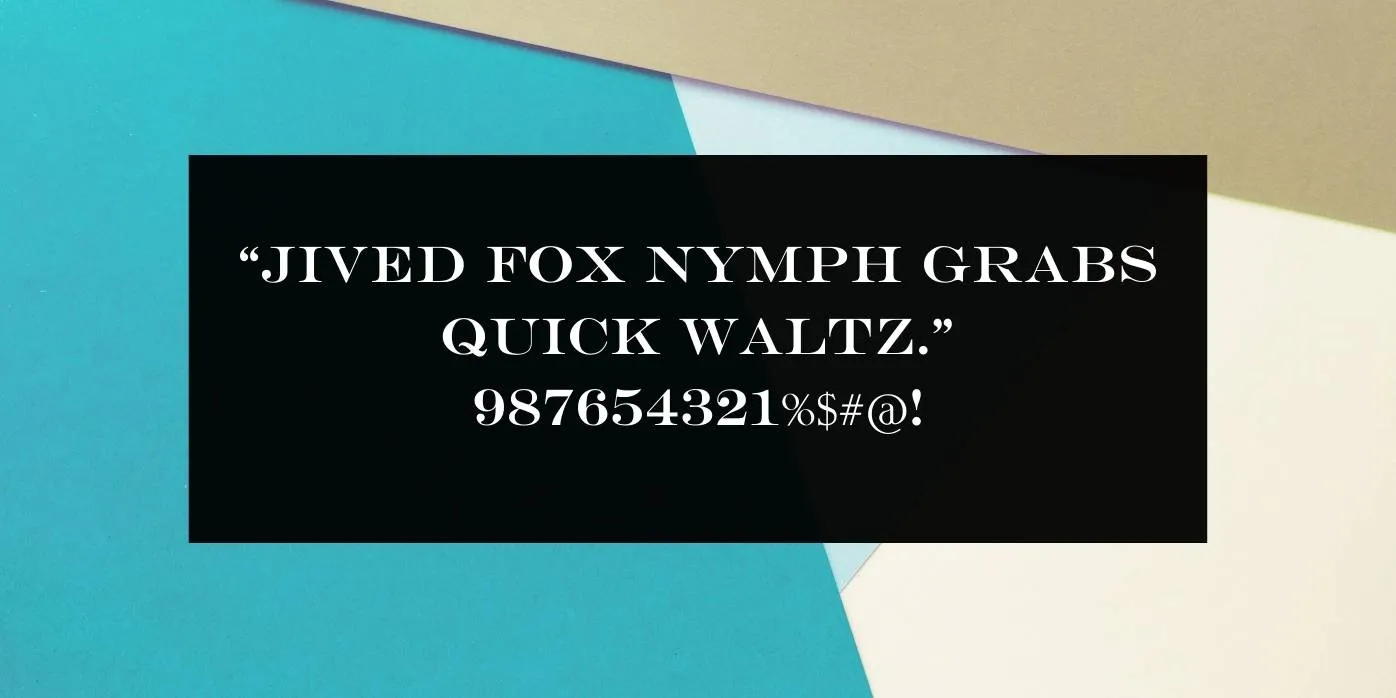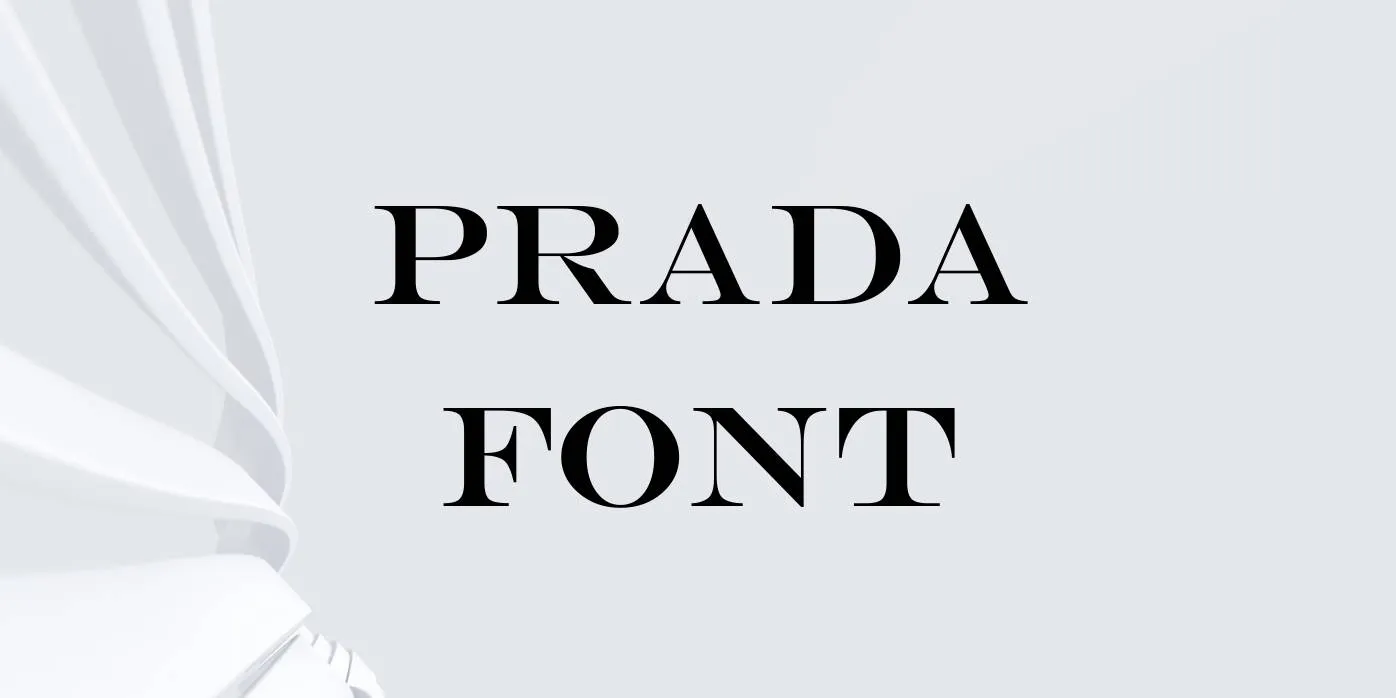
Prada Font
Prada Font is a serif font with an elegant and flowing design. It is perfect for wedding invitations, greeting cards, logos, and much more. This Font has been downloaded over 100,000 times and is one of the most popular typefaces on the internet. This font was created by a very unique typeface designer named Kana Widana.
This Font is available in both regular and bold versions. It also includes a complete set of alphabet, numerals, and punctuation marks. The Font is available in both TrueType and OpenType formats.